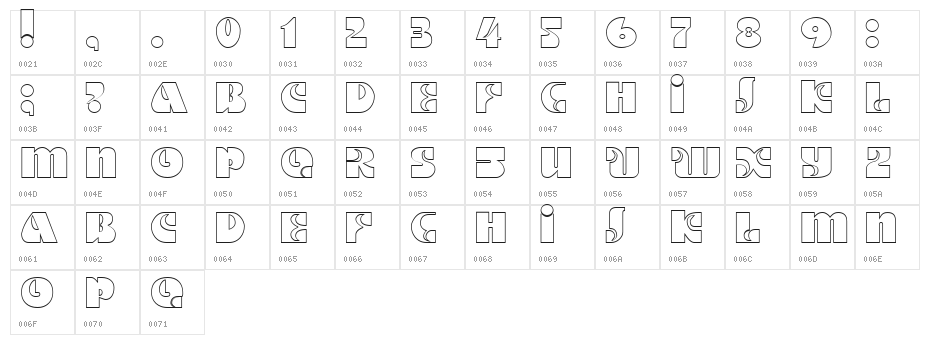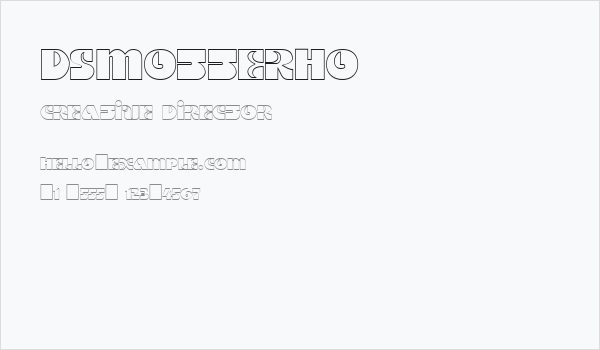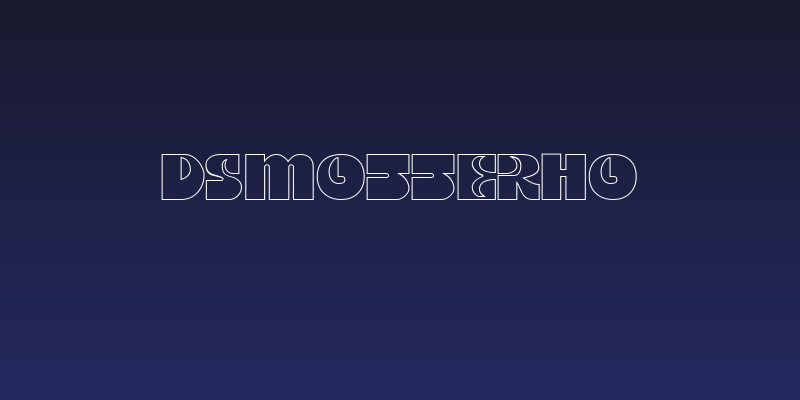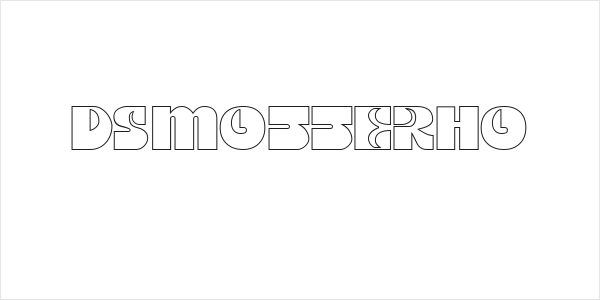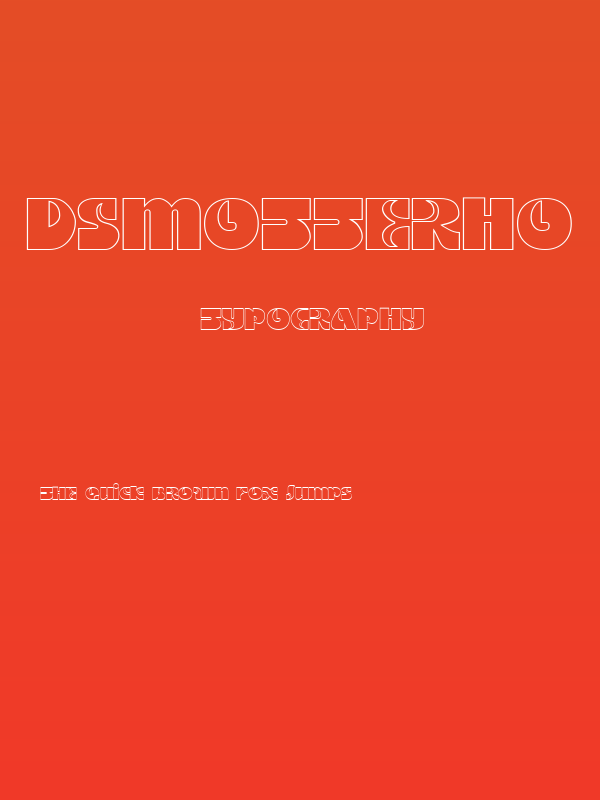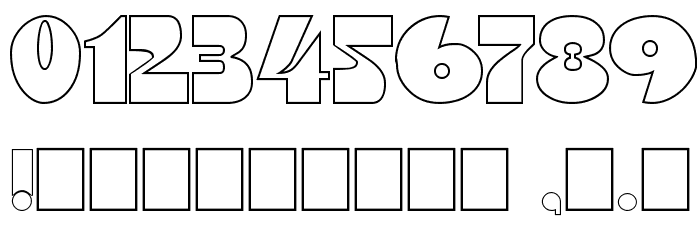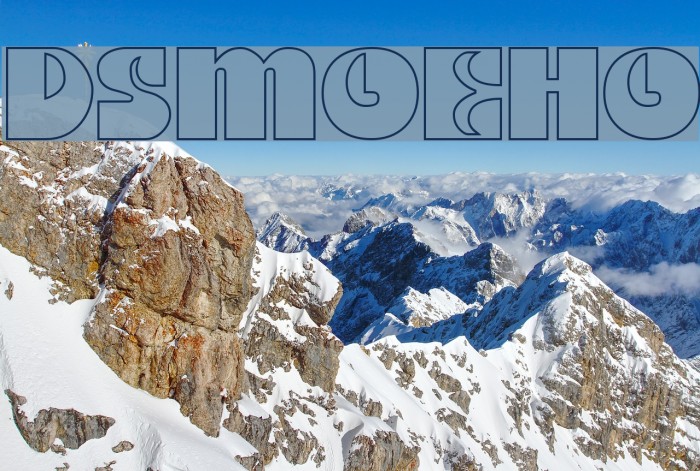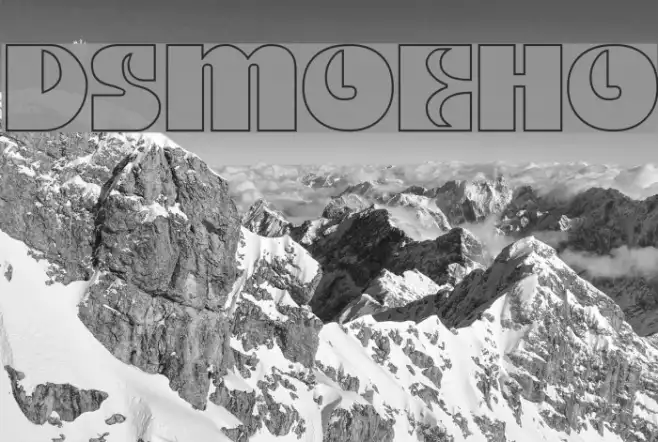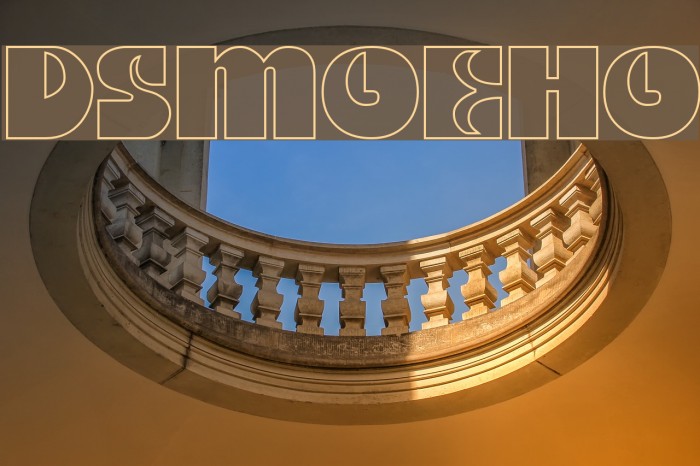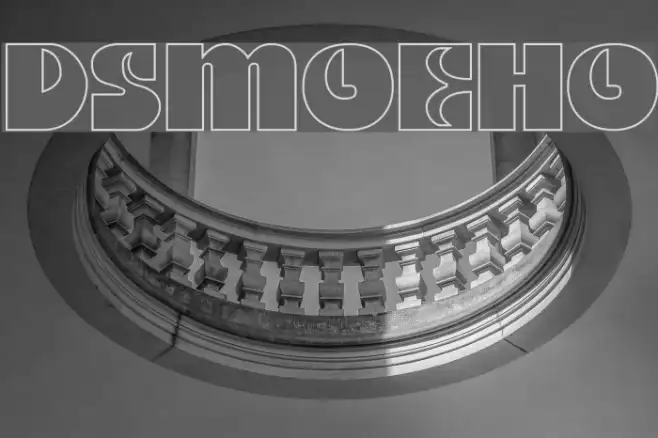
DSMotterHo Font
DSMotterHo Description
This font features a bold and geometric design with a strong emphasis on circular and angular shapes. Each character is crafted with a unique blend of curves and straight lines, creating a dynamic and modern appearance. The uppercase letters are particularly striking, with their bold forms and distinctive style. The lowercase letters maintain the same geometric theme, offering a cohesive look across the entire typeface. Numbers and special characters are equally bold and follow the same design principles, ensuring consistency throughout. This font is ideal for projects that require a strong visual impact and a contemporary aesthetic.